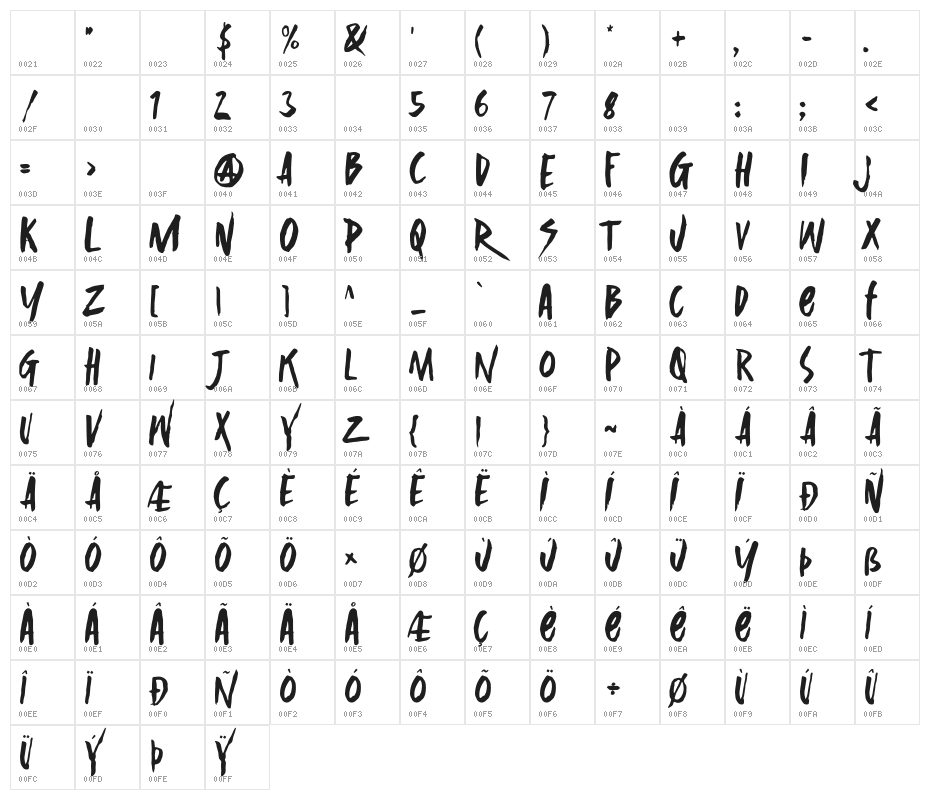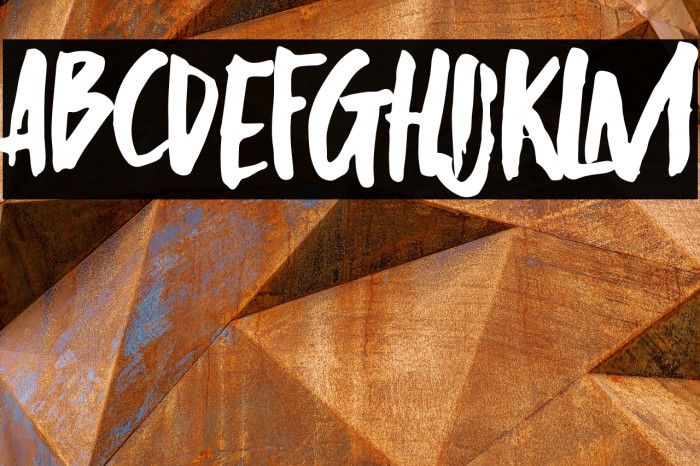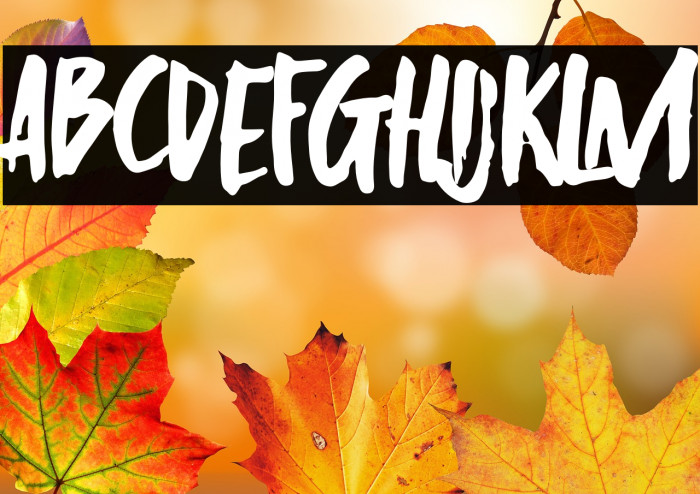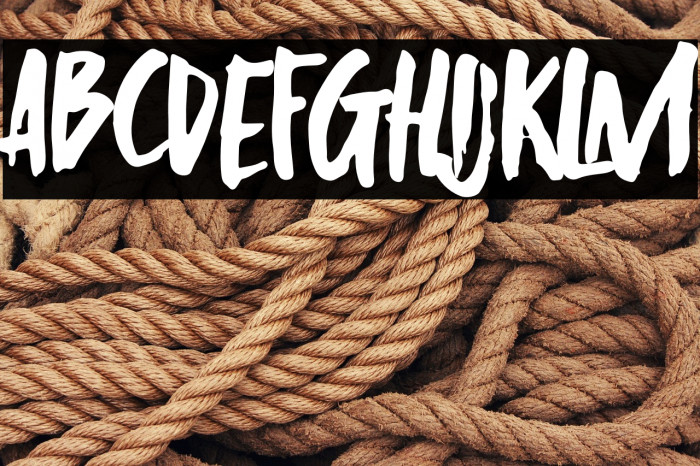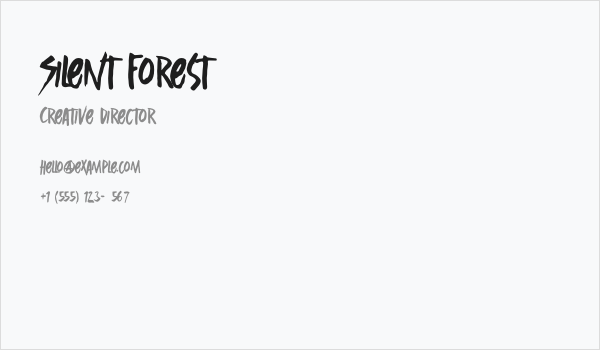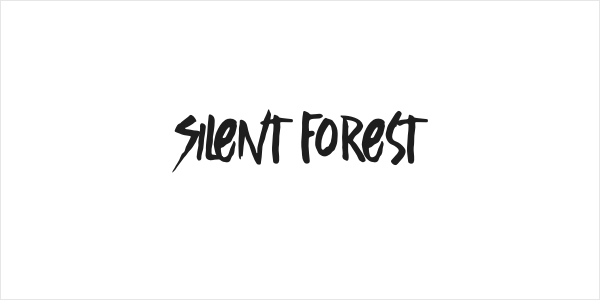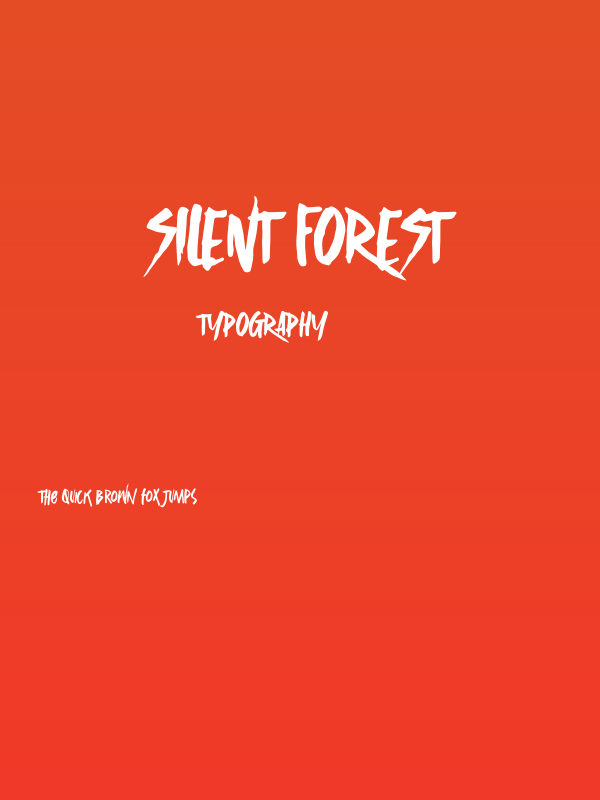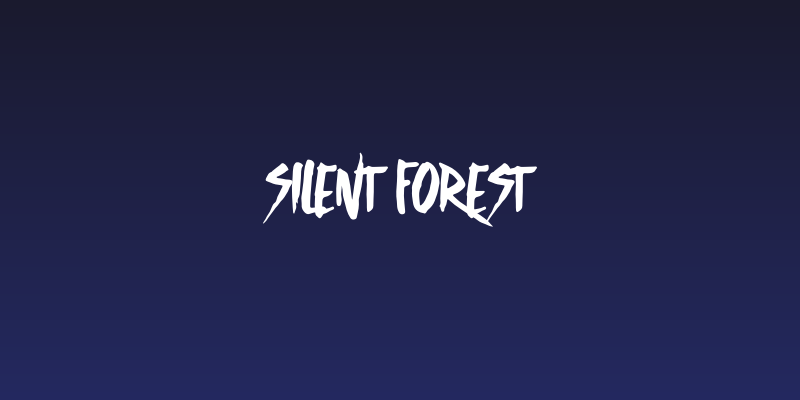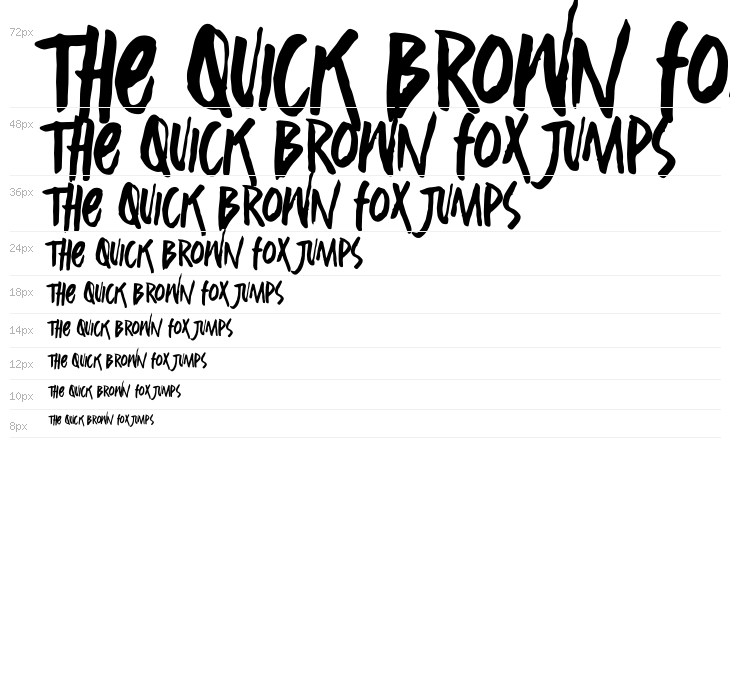
Silent Forest Font
Silent Forest Description
This font features a bold, expressive style with a hand-drawn appearance. The letters are irregular and dynamic, giving a sense of movement and energy. The strokes are thick and vary in width, adding to the font's boldness and making it stand out. The characters have a slightly rough texture, enhancing the organic and artistic feel. This font is suitable for creative projects that require a personal touch, such as posters, album covers, or artistic branding. The numbers and special characters maintain the same energetic style, ensuring consistency across all text elements.
| Proposed Projects | Ideal for posters, album covers, artistic branding, and creative projects. |